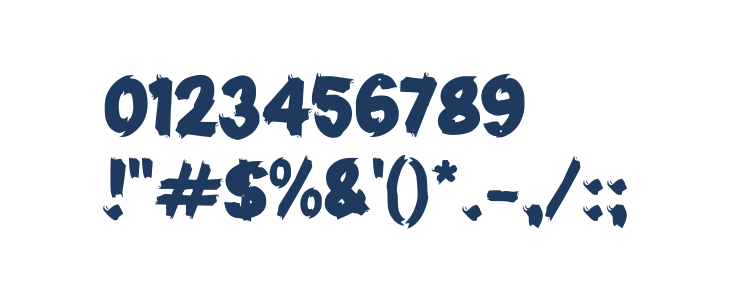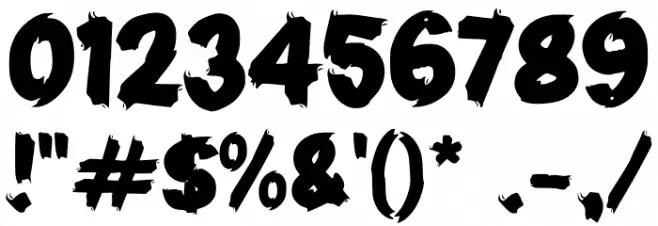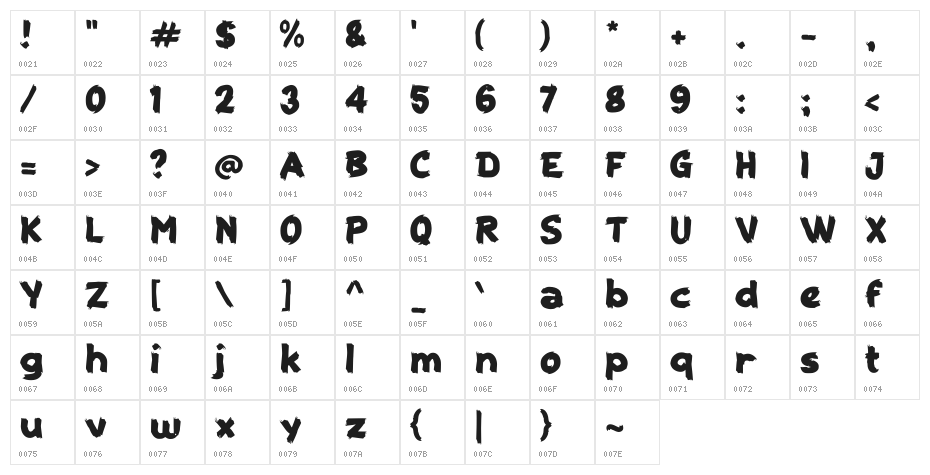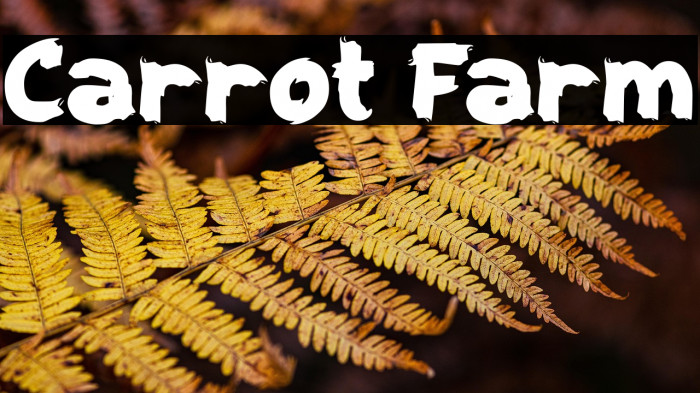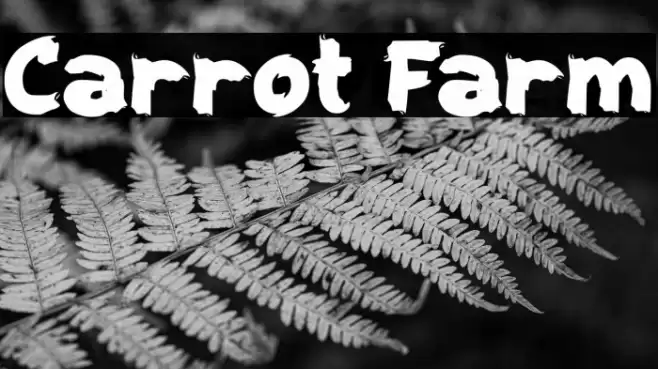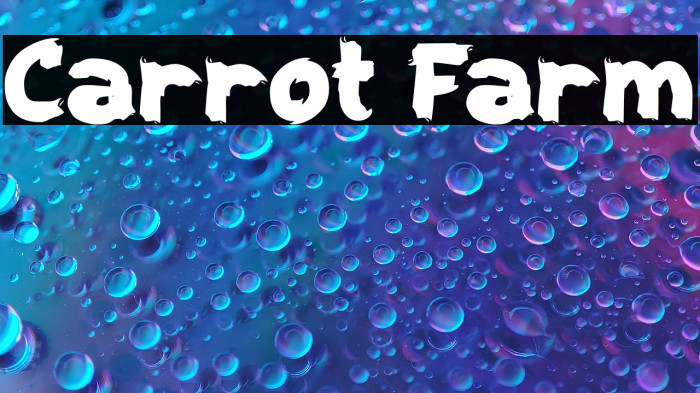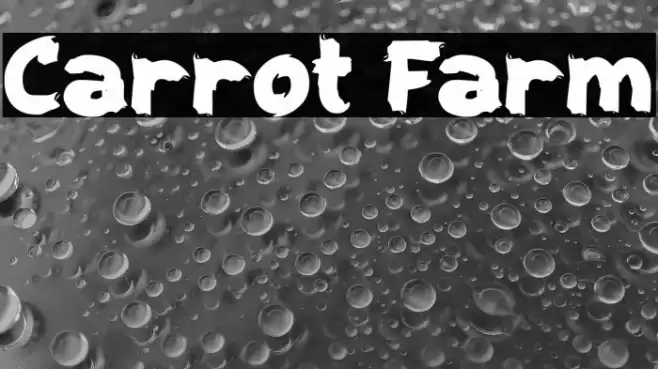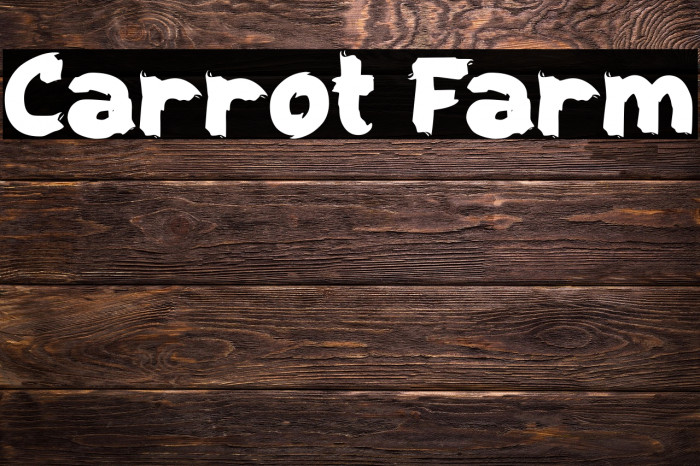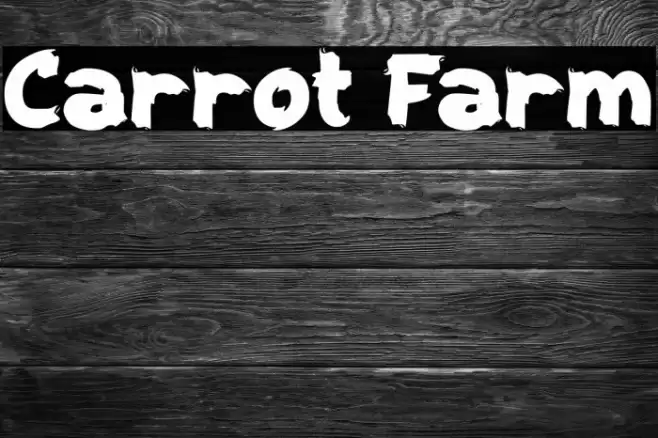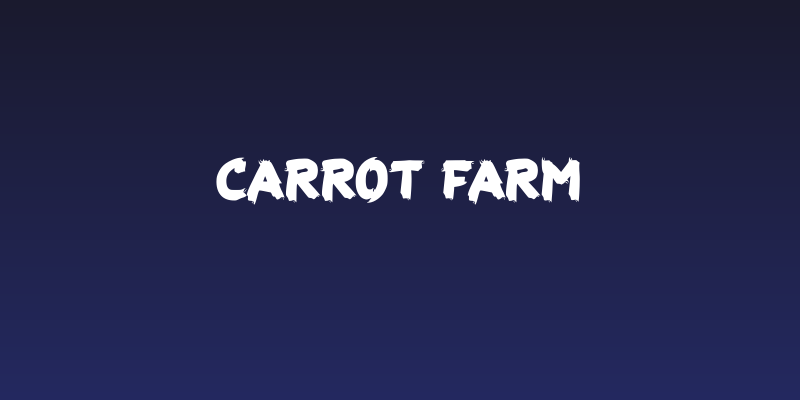
Carrot Farm Font
Carrot Farm Description
This font features a bold and dynamic style with a hand-painted appearance. The characters are thick and have an irregular, brush-like texture that gives them a lively and energetic feel. The strokes are uneven, adding to the handcrafted aesthetic. The uppercase and lowercase letters maintain a consistent style, with rounded edges and a slightly condensed form. Numbers and special characters follow the same design principles, ensuring a cohesive look across all elements. This font is ideal for projects that require a bold, artistic touch.